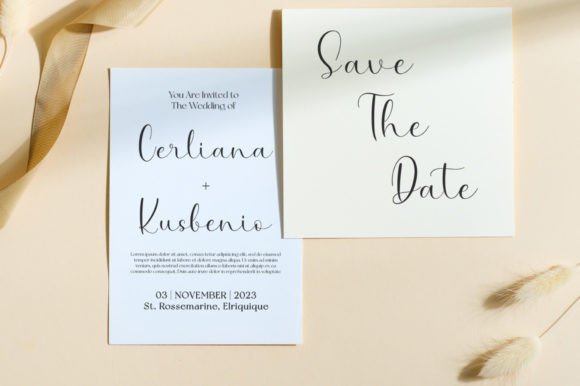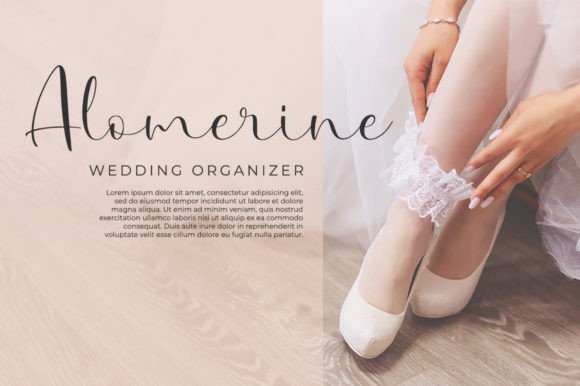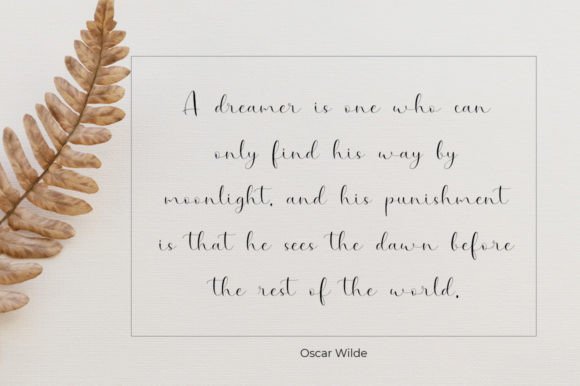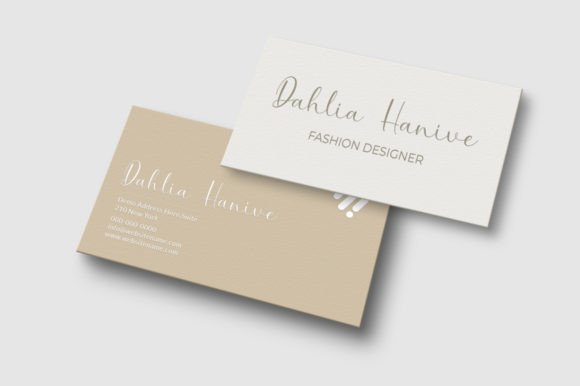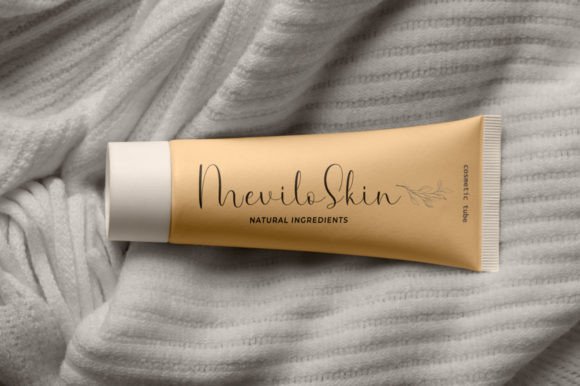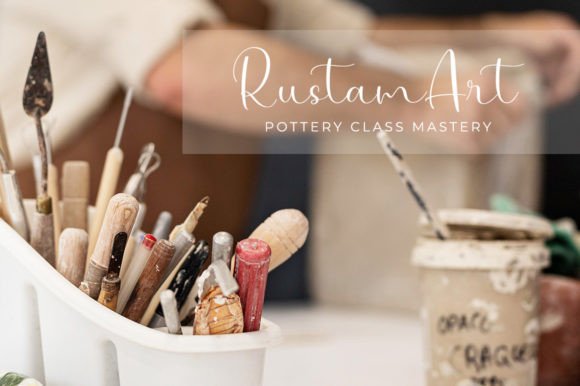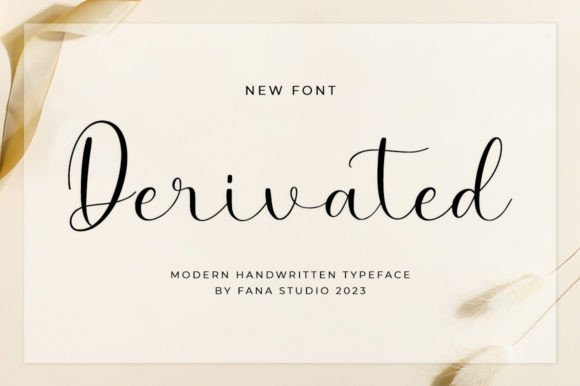
Introducing Derivated Script: Elevate Your Designs with Elegance and Sophistication
In the world of typography, a derivated font can add a unique touch to any design project. One such font that has gained popularity among designers and crafters is the Derivated Script. This stylish font style offers an elegant, classy, and modern look, making it perfect for a wide range of applications. In this article, we’ll explore the features and benefits of the Derivated Script font and how it can elevate your designs to the next level.
What is Derivated Script?
Derivated Script is a beautiful script font that offers a personal touch to your latest art project. Its gorgeous typography is perfect for logos & branding, invitations, stationery, wedding designs, social media posts, advertisements, product packaging, product designs, labels, photography, watermarks, special events, or anything that needs a handwriting taste. The font’s elegant and classy look makes it an excellent choice for designers and crafters who want to add a touch of sophistication to their work.
Key Features of Derivated Script
The Derivated Script font comes with a range of features that make it an excellent choice for designers and crafters. Some of the key features include:
- Elegant and Classy Look: The Derivated Script font has an elegant and classy look that is perfect for designs that require a touch of sophistication.
- Modern Design: The font’s modern design makes it perfect for contemporary designs that require a fresh and stylish look.
- Gorgeous Typography: The font’s gorgeous typography is perfect for logos & branding, invitations, stationery, and other design applications.
- Handwriting Taste: The Derivated Script font has a handwriting taste that adds a personal touch to your designs.
Use Cases for Derivated Script
The Derivated Script font is versatile and can be used in a wide range of design applications, including:
- Logos & Branding: Create a unique and memorable logo for your brand
- Invitations: Design elegant and sophisticated invitations for special events
- Stationery: Create stylish and modern stationery for personal or business use
- Wedding Designs: Design beautiful and elegant wedding invitations, decorations, and more
- Social Media Posts: Add a touch of elegance to your social media posts
- Advertisements: Create stylish and modern advertisements that grab attention
- Product Packaging: Design elegant and sophisticated product packaging
- Product Designs: Create stylish and modern product designs
- Labels: Design elegant and sophisticated labels for products or events
- Photography: Add a touch of elegance to your photography with stylish watermarks
- Special Events: Design elegant and sophisticated materials for special events
Why Choose Derivated Script?
There are many script fonts available, but Derivated Script stands out from the rest. Here are some reasons why you should choose Derivated Script:
- Unique Design: The Derivated Script font has a unique design that sets it apart from other script fonts
- Elegant and Classy: The font’s elegant and classy look makes it perfect for designs that require sophistication
- Modern Design: The font’s modern design makes it perfect for contemporary designs
In conclusion, the Derivated Script font is a stylish and elegant font that can add a touch of sophistication to your designs. Its gorgeous typography, modern design, and handwriting taste make it perfect for a wide range of design applications. Whether you’re a designer or crafter, the Derivated Script font is an excellent choice for your next project.